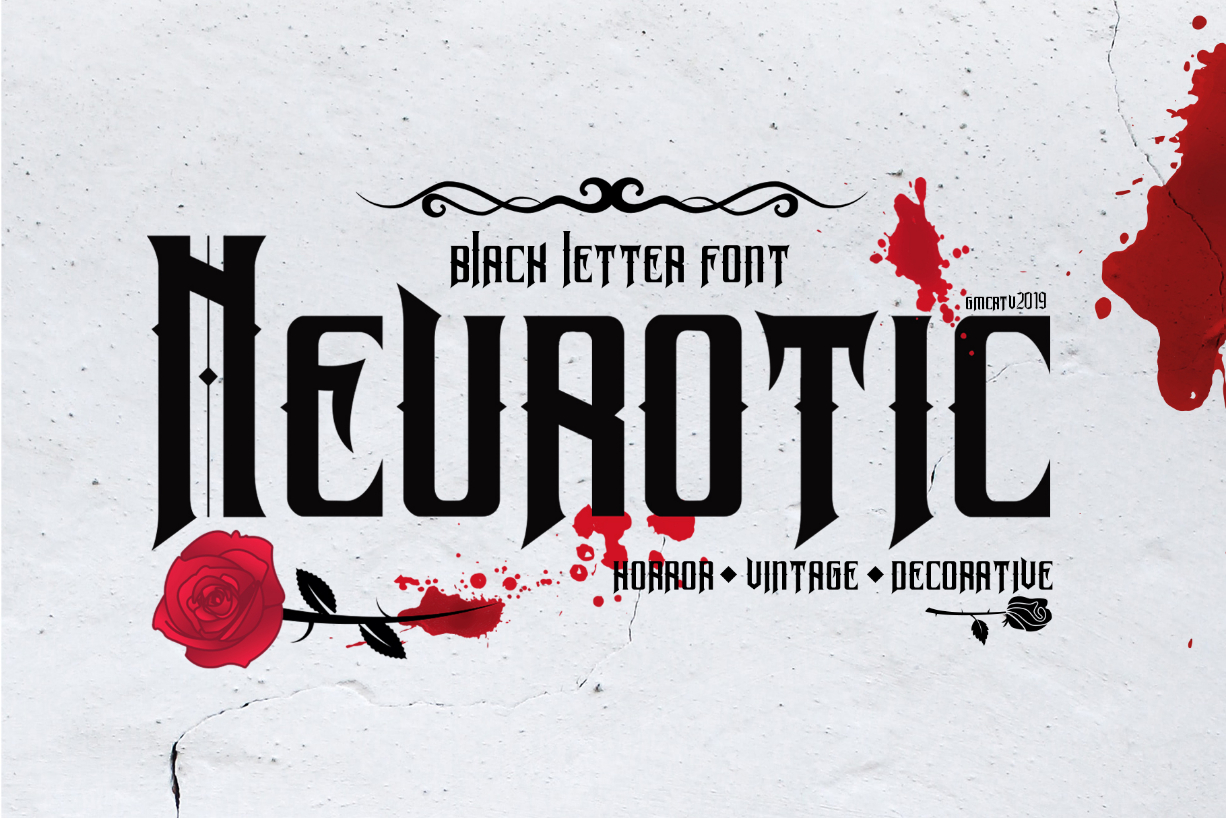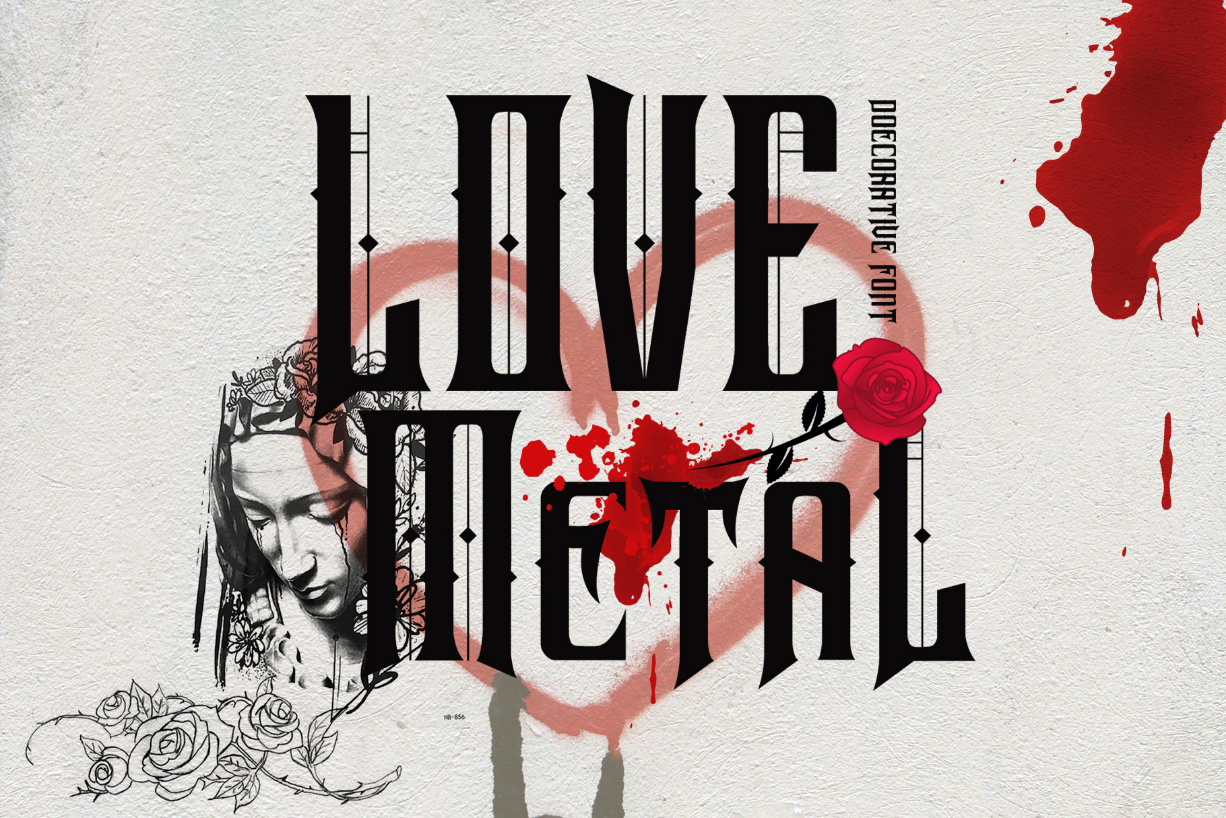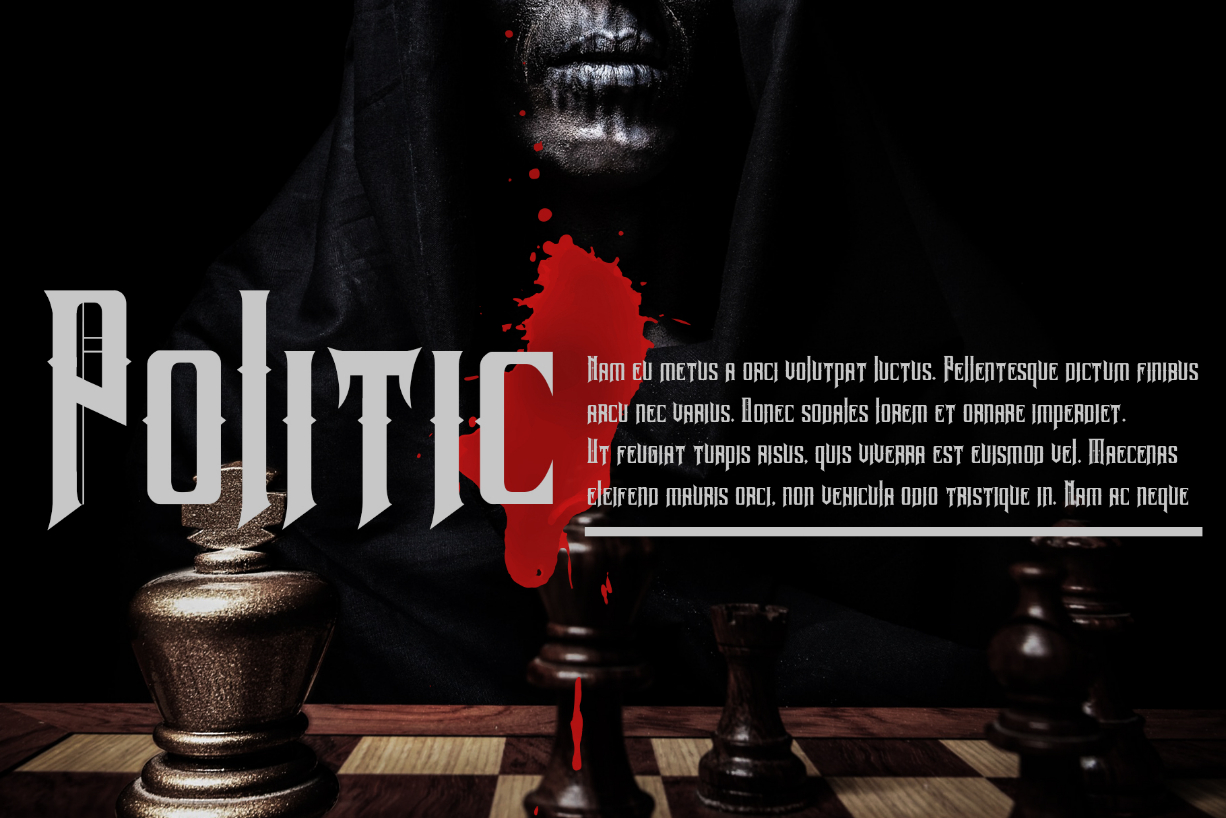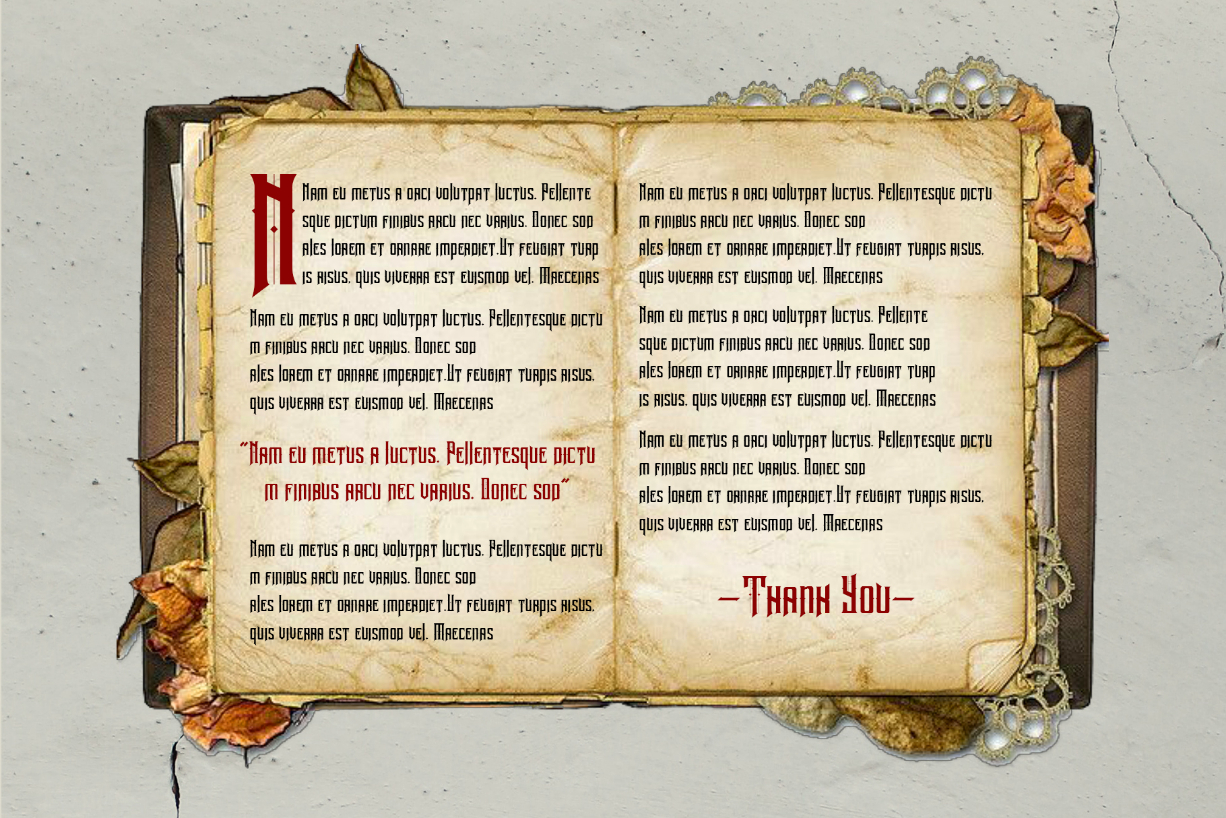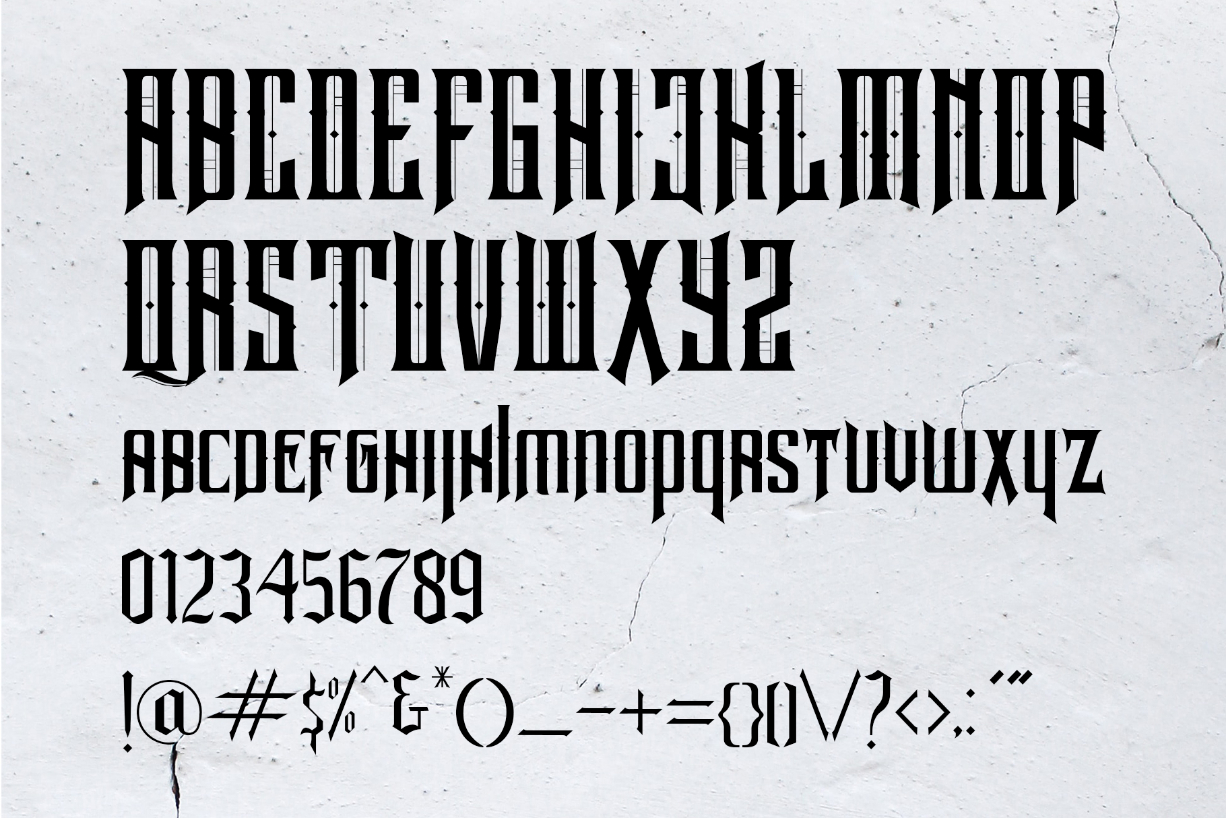
Neurotic Font
About Neurotic Font
Neurotic is a sans font inspired by old time thriller movie posters. It is elegant, strong, and perfect for edgy or horror-themed design projects.